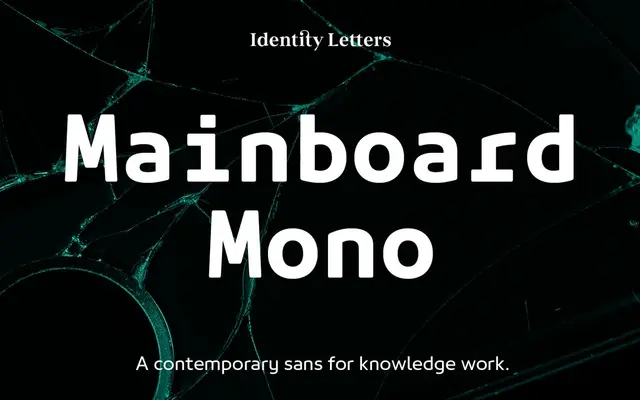
Mainboard Mono
A spurless humanist monospaced typeface in seven weights, conceived for coding environments and large-format sports and technology applications.
Built from a sleek spurless sans with generous apertures and rectangular dots, Mainboard Mono targets on-screen legibility at small sizes whilst retaining enough character to work at stadium scale. Selective slab serifs maintain even texture at monospaced widths, and 500+ glyphs include stylistic alternates, slashed zero and a full suite of figure sets. It pairs directly with Mainboard, the proportional variant within the same superfamily.
A monospaced typeface derived from a spurless humanist sans-serif base, with slab-like serifs applied selectively to maintain texture at fixed widths. Classified as mono due to its primary monospaced construction and coding-environment focus.